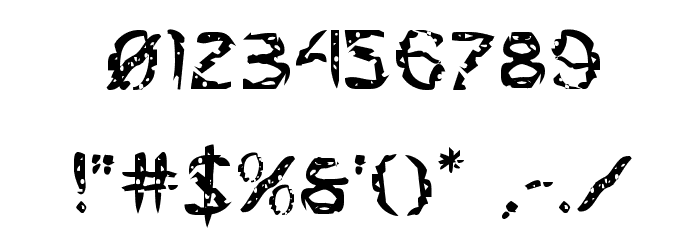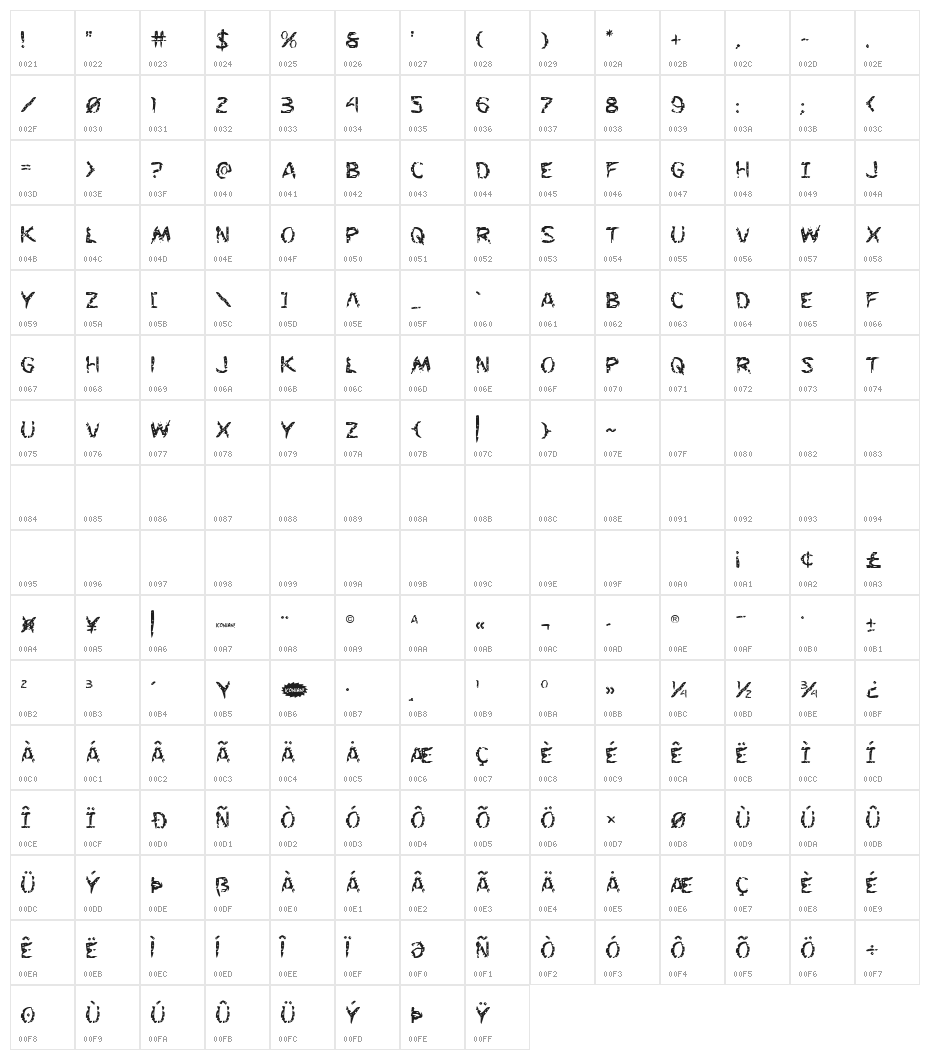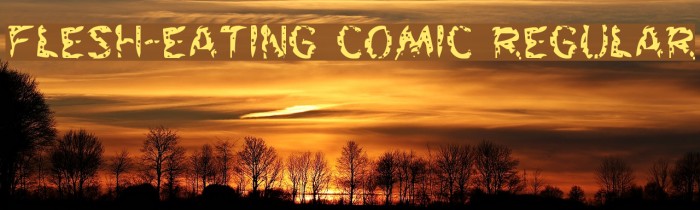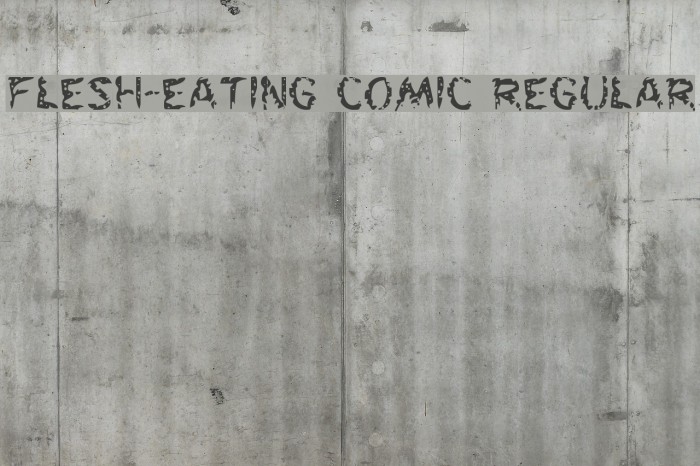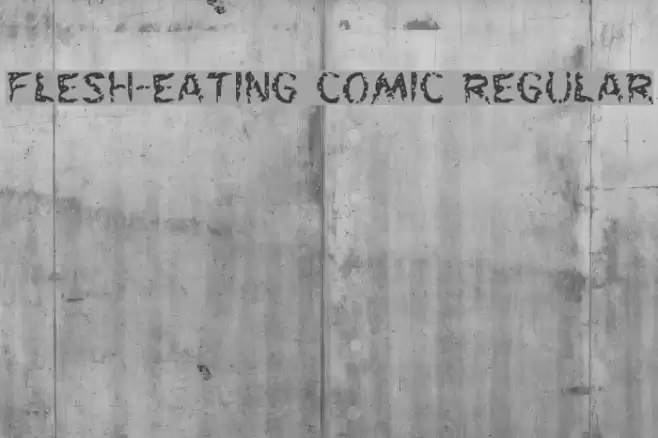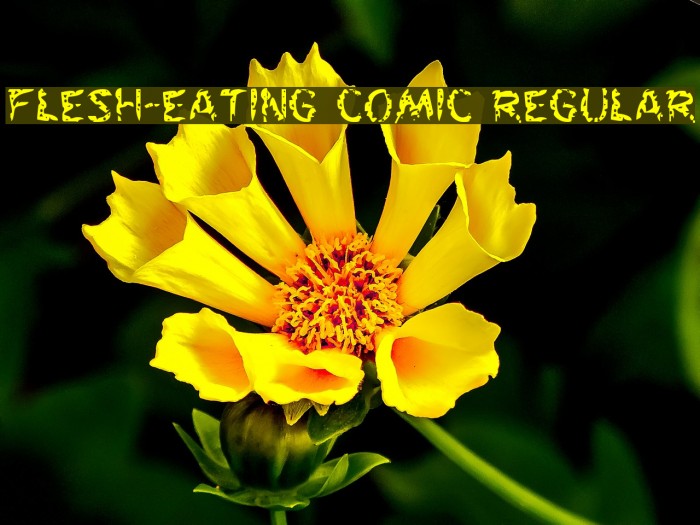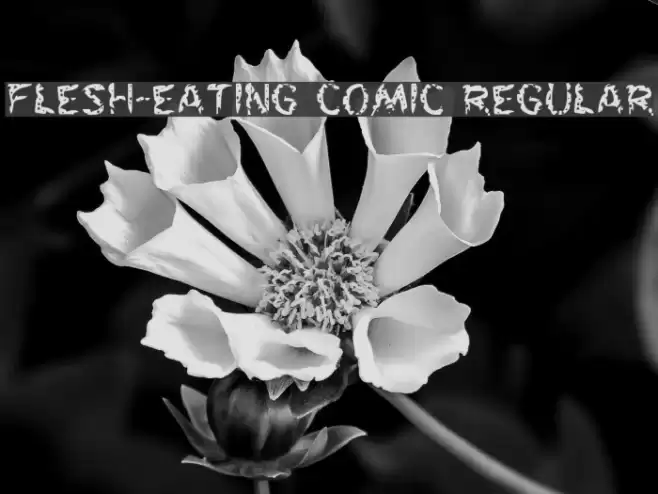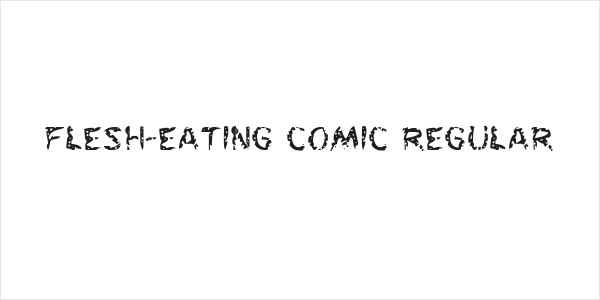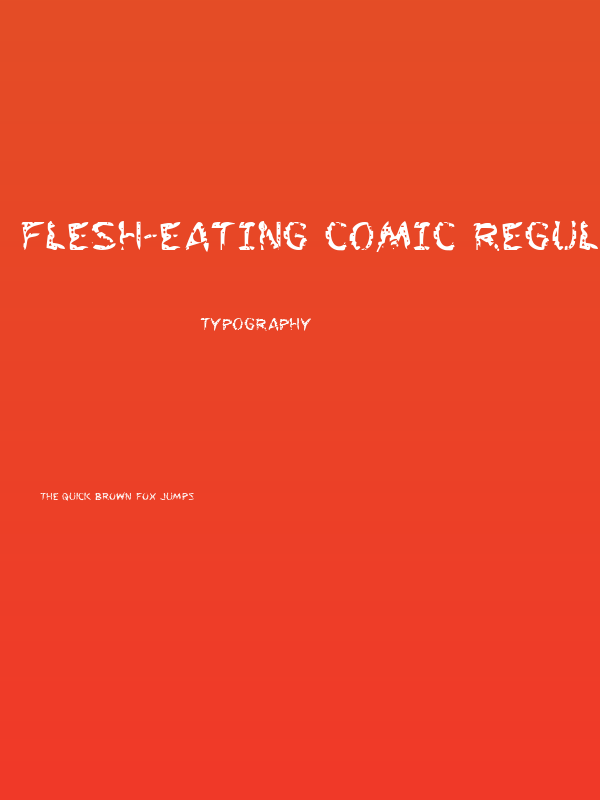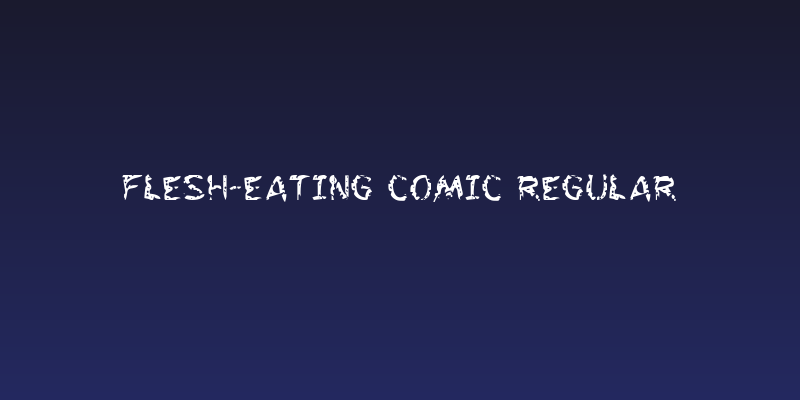
Flesh-Eating Comic Regular Font
Flesh-Eating Comic Regular Description
This font features a unique, distressed style that gives the impression of being partially eroded or eaten away. The characters have a bold, jagged appearance with irregular edges, creating a dynamic and somewhat chaotic look. The design is reminiscent of horror or comic themes, making it ideal for projects that require a dramatic and eye-catching typeface. The uppercase and lowercase letters maintain a consistent style, with numerals and special characters following the same aesthetic. This font's distinctive appearance makes it suitable for creative and unconventional applications.
| Proposed Projects | Ideal for horror-themed posters, comic book titles, Halloween invitations, and edgy graphic designs. |